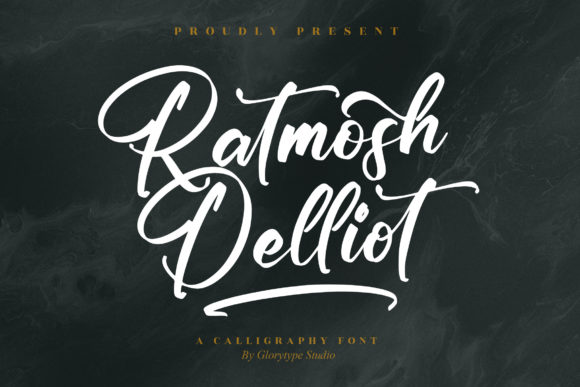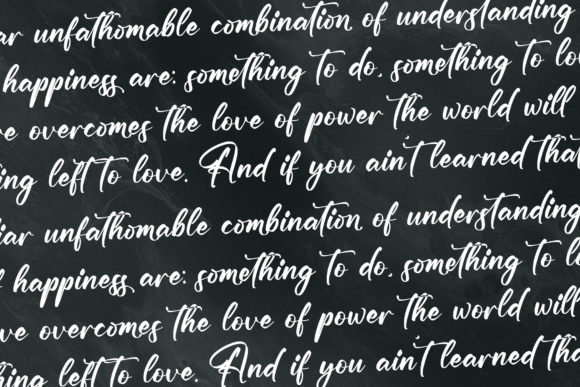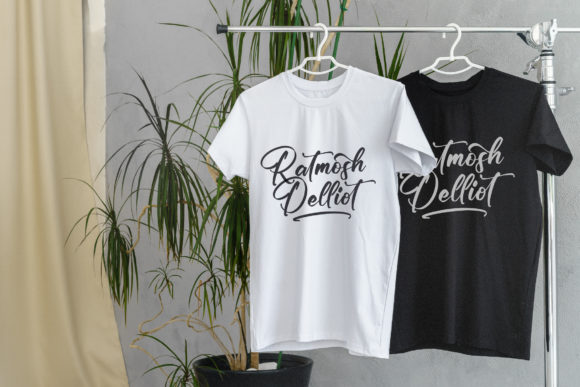
About Ratmosh Delliot Font
Ratmosh Delliot is a beautiful script font, featuring a lovely flow. It has a modern and adaptable style and it will undoubtedly immerse your designs into a magical world. This font is PUA encoded which means you can